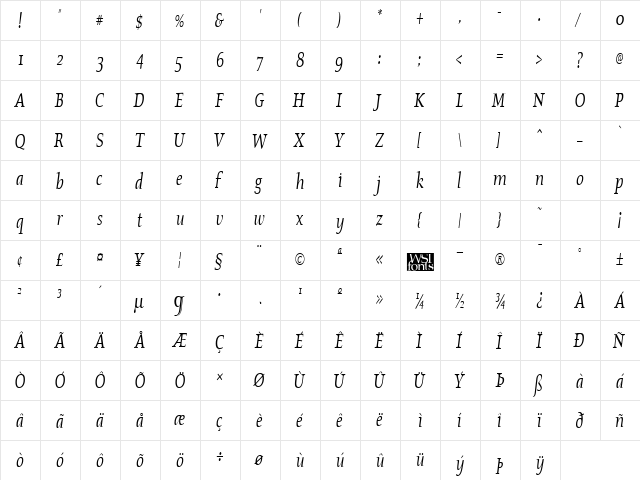
OldstyleCondensed Italic Font Preview
Design Context for OldstyleCondensed Typeface
OldstyleCondensed brings classic typographic sensibility to the table — its serifs and measured letterforms reflect centuries of print heritage. The dynamic lean of this cut emphasises speed and emphasis in any layout. The condensed width makes it efficient for tight spaces without sacrificing legibility.